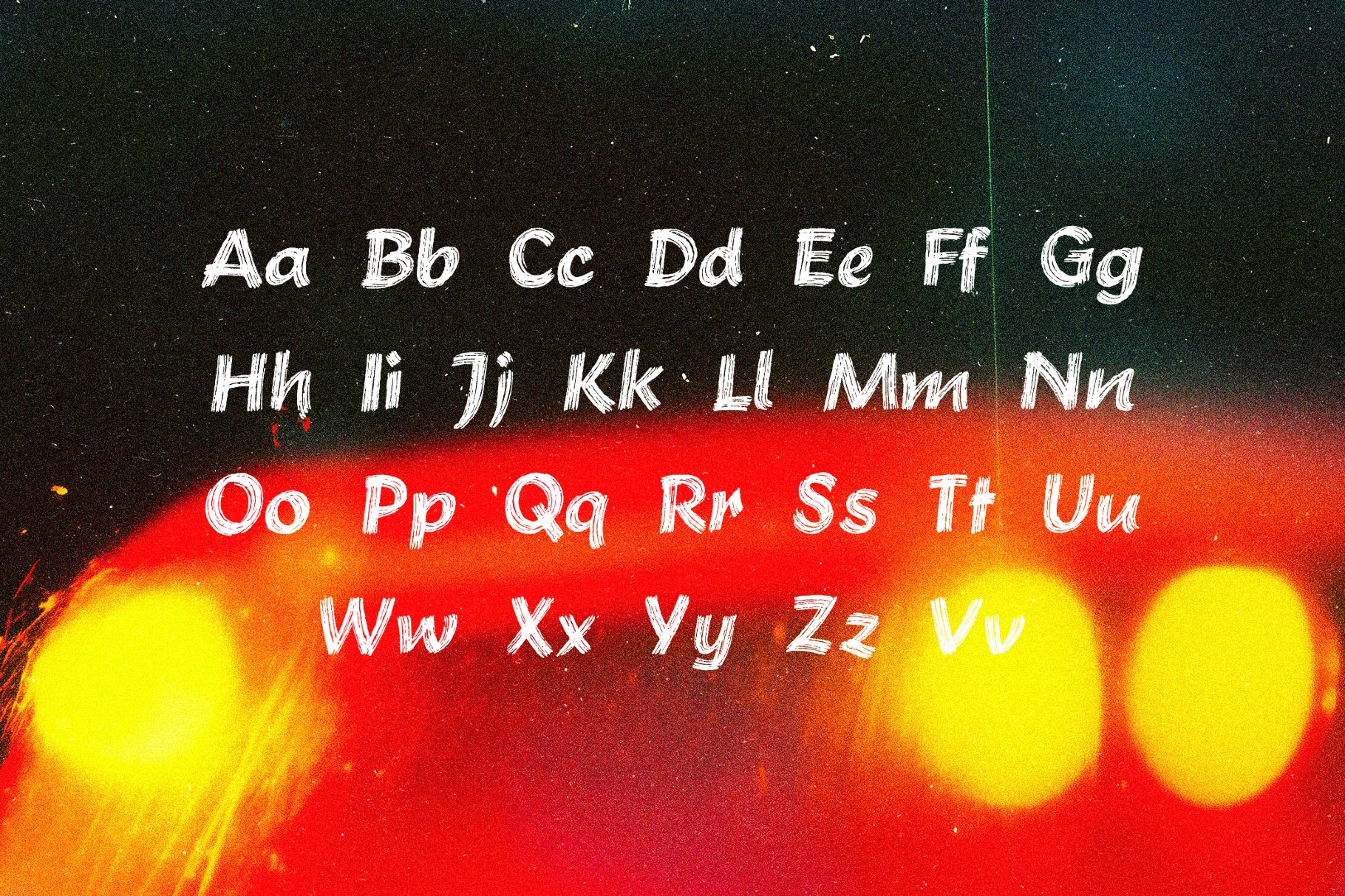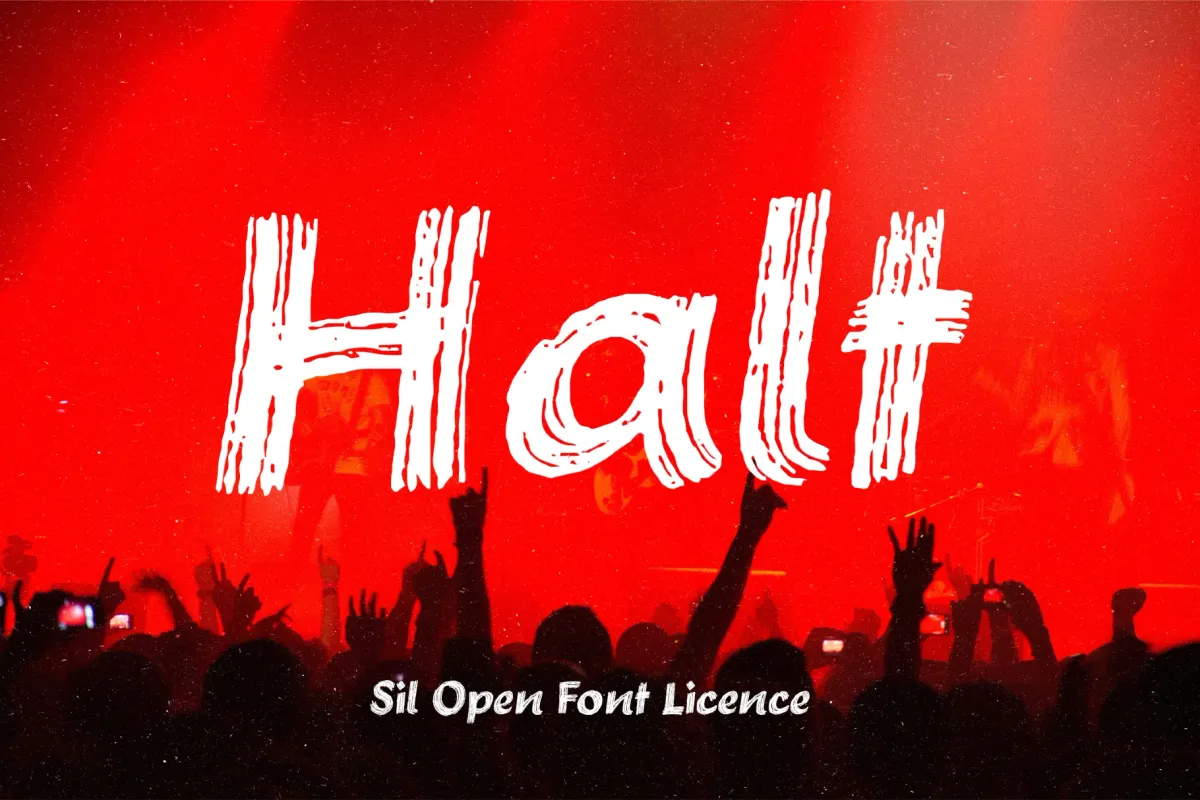
Halt Brush Font
Halt
Halt throws bold brush strokes across the line with the urgency of street protest placards. Its hard, directive tone works well for gig posters, tech branding, album art, skate packaging, social media headers, streetwear logos, gaming titles, and event graphics.
- Multilingual support across an extended Latin set.
- Ligatures.